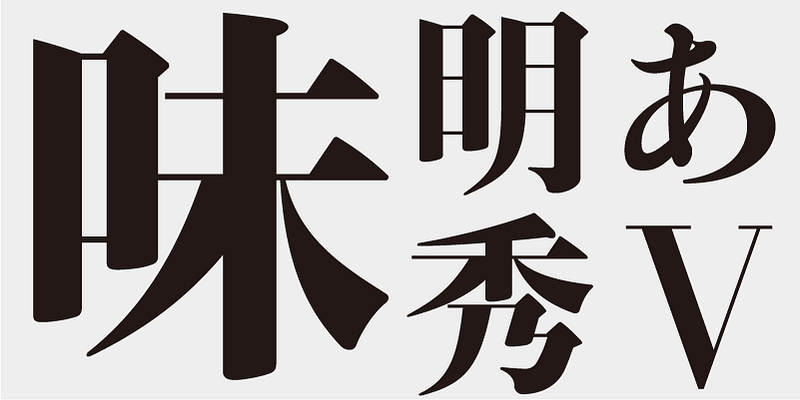
AB Ajimin Modern Syu V/EB Font Free Download is a luxurious and culturally expressive Japanese serif typeface that blends traditional Mincho-style elegance with modern visual clarity. The “Syu” (酒) in the name hints at inspiration from sake culture or refined Japanese aesthetics, while “V” may signify a variation or a vintage touch within the series. The “EB” (Extra Bold) weight makes this version perfect for impactful headlines, premium packaging, or signage that demands both heritage and boldness.
AB Ajimin Modern Syu V/EB Font Free Download features high-contrast strokes, sharp yet graceful serifs, and a well-balanced structure. While rooted in Mincho (明朝体) tradition, the “Modern” design updates the flow and geometry, making it more versatile for contemporary digital and print design. It's a standout choice for cultural publications, Japanese restaurant branding, sake labels, and luxury goods that want to blend authenticity with design precision.
The font supports Hiragana, Katakana, Kanji, and basic Latin characters, making it ideal for bilingual projects that need to maintain both elegance and readability.
Elegant, bold, and deeply cultural—AB Ajimin Modern Syu V/EB is perfect for designers seeking to blend Japanese tradition with modern sophistication in a visually powerful way.